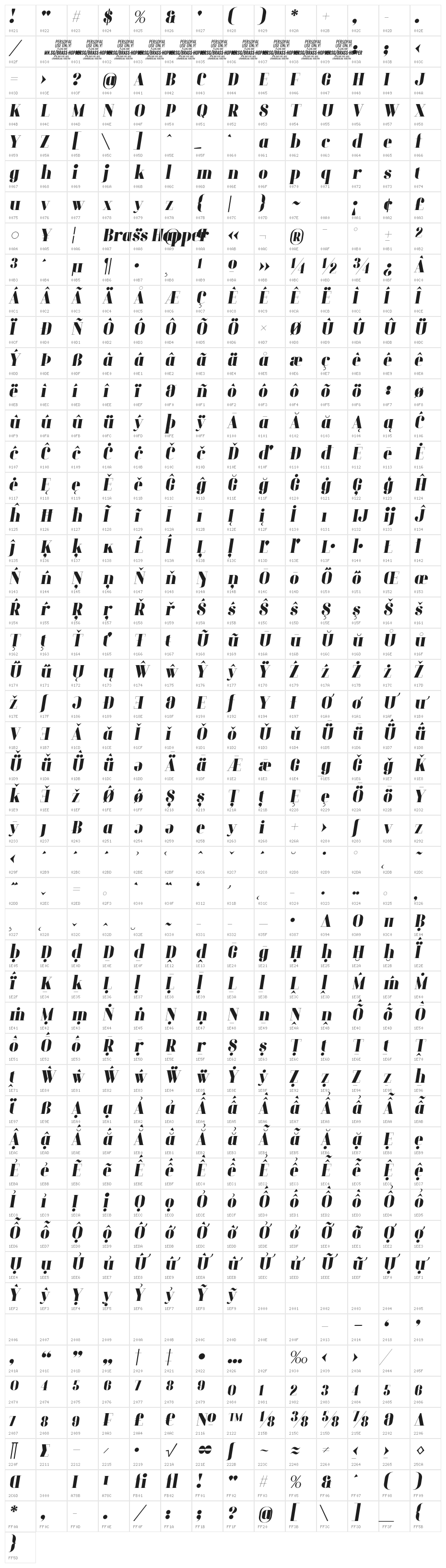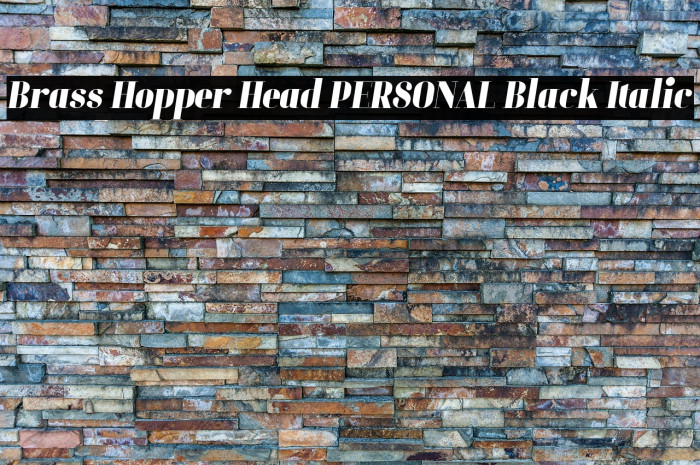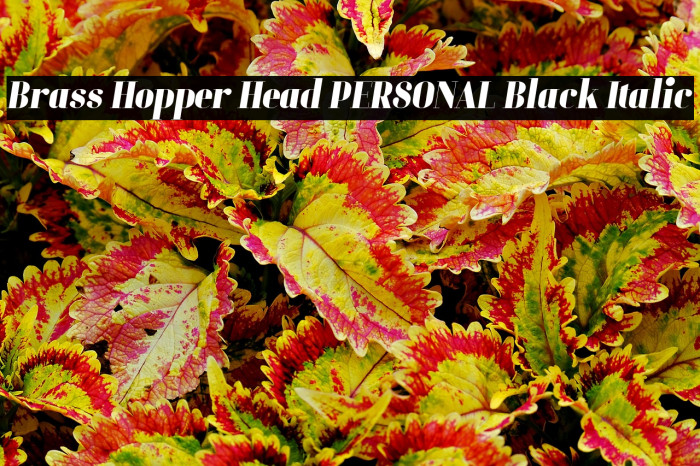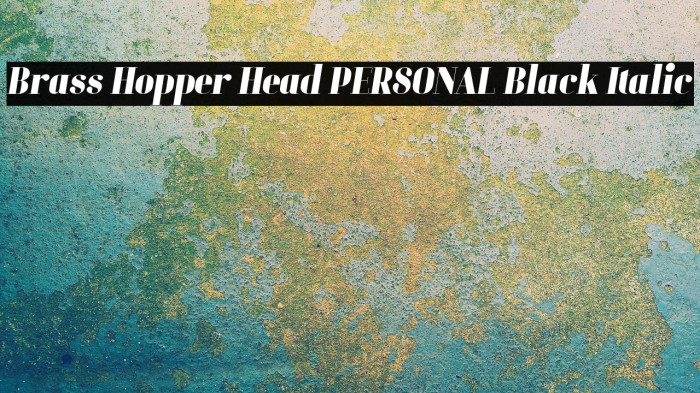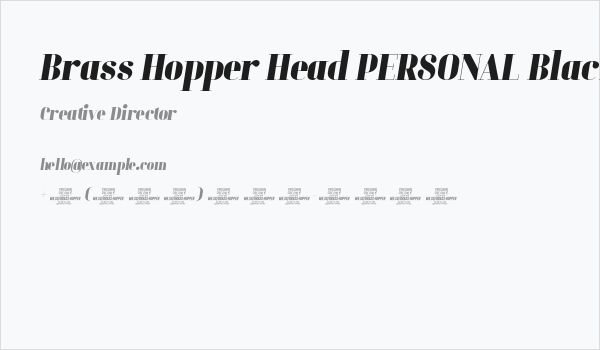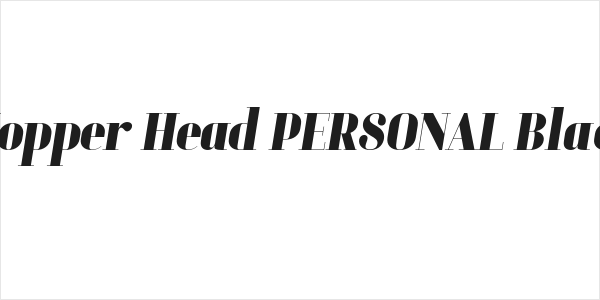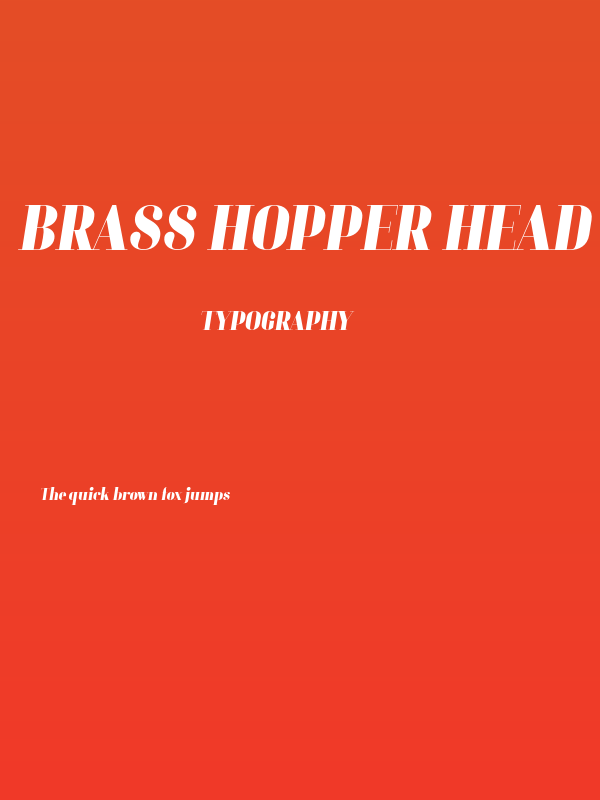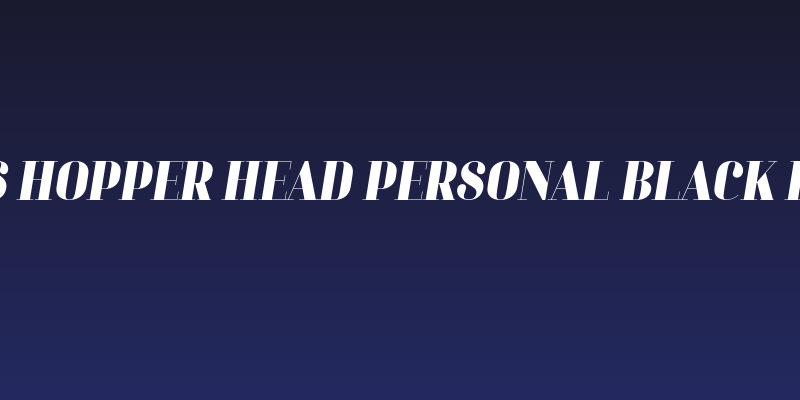
Brass Hopper Head PERSONAL Black Italic Font
Brass Hopper Head PERSONAL Black Italic Description
This font exhibits a bold and dynamic style with a pronounced italic slant, giving it a sense of movement and energy. The characters are thick and robust, with high contrast between the thick and thin strokes, which enhances its dramatic appearance. The uppercase letters are tall and commanding, while the lowercase letters maintain a consistent flow with smooth curves and sharp angles. The numerals and special characters are equally bold, maintaining the overall aesthetic. This font is ideal for making a strong visual impact.
| Proposed Projects | Ideal for branding, headlines, posters, and any project requiring a strong visual impact. |